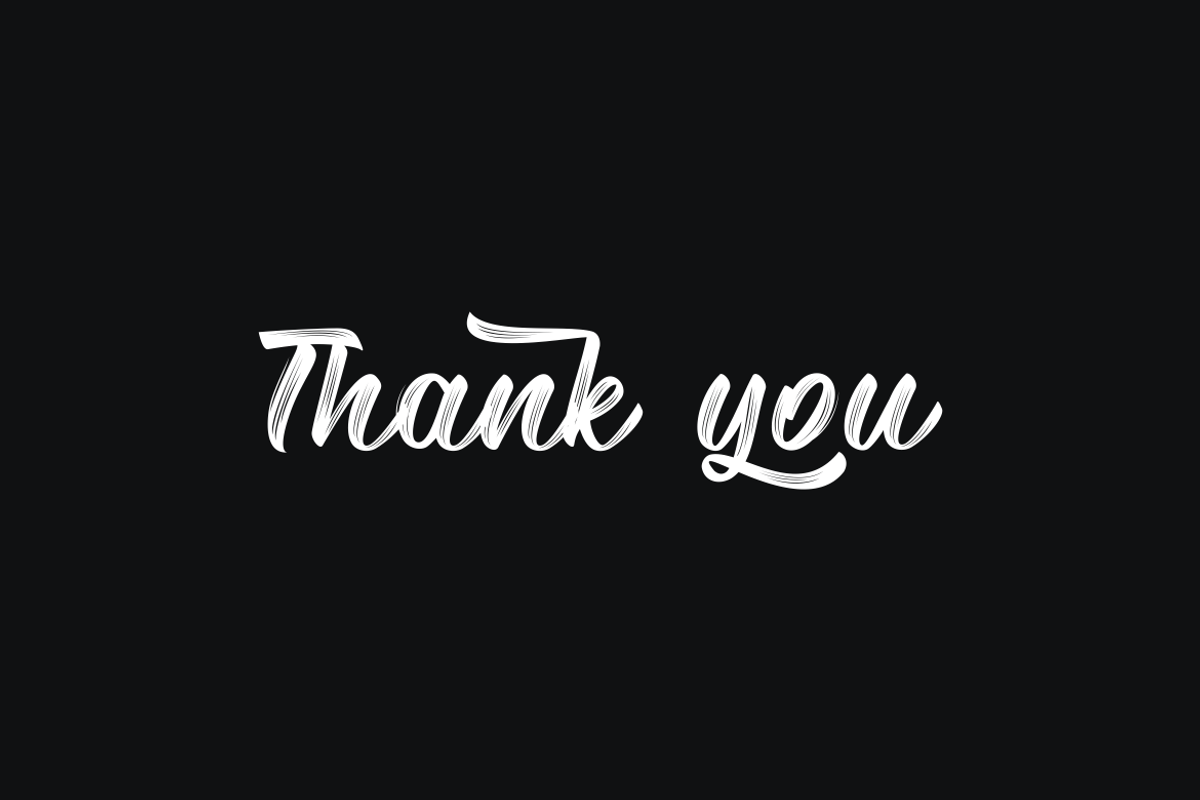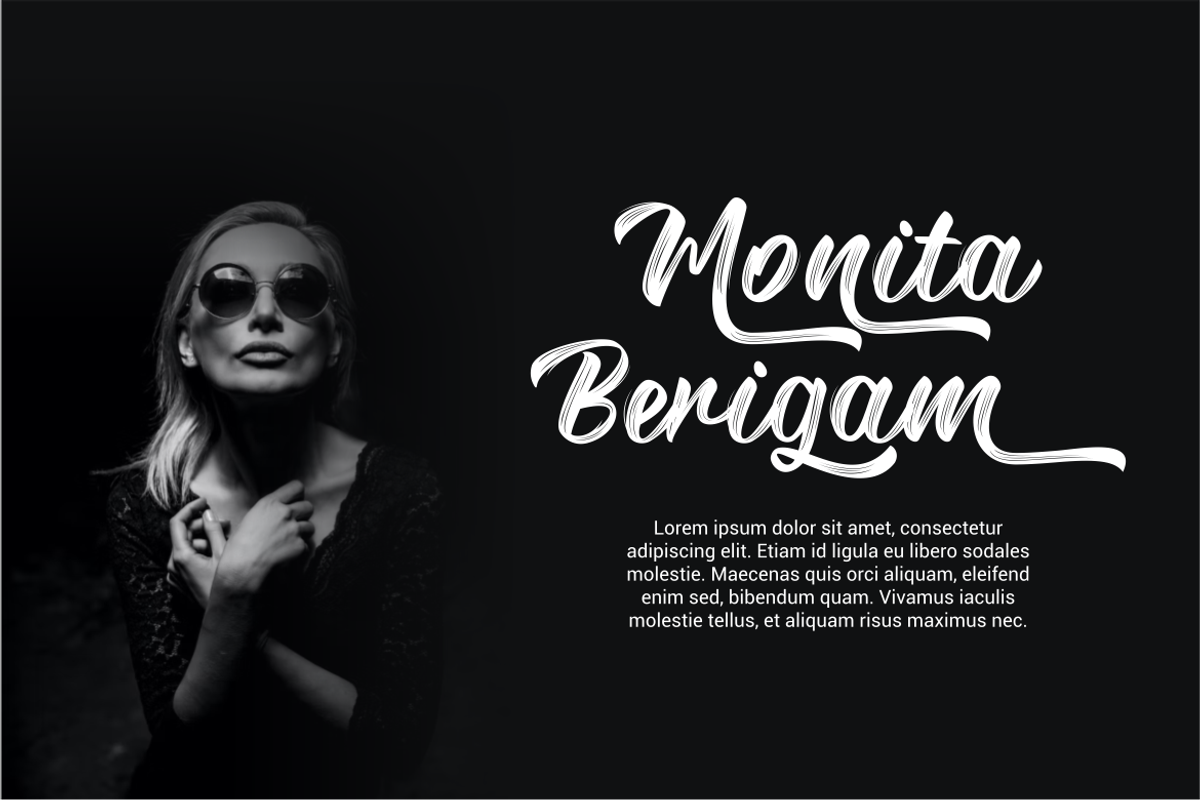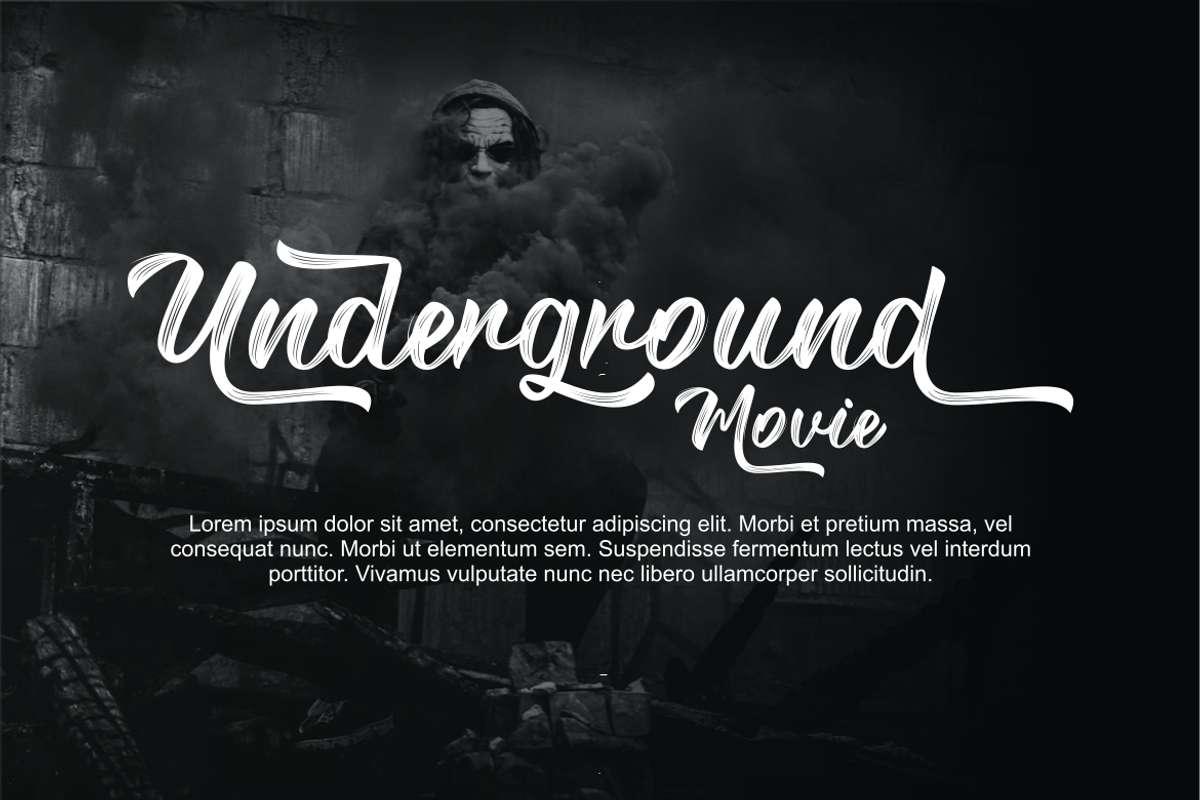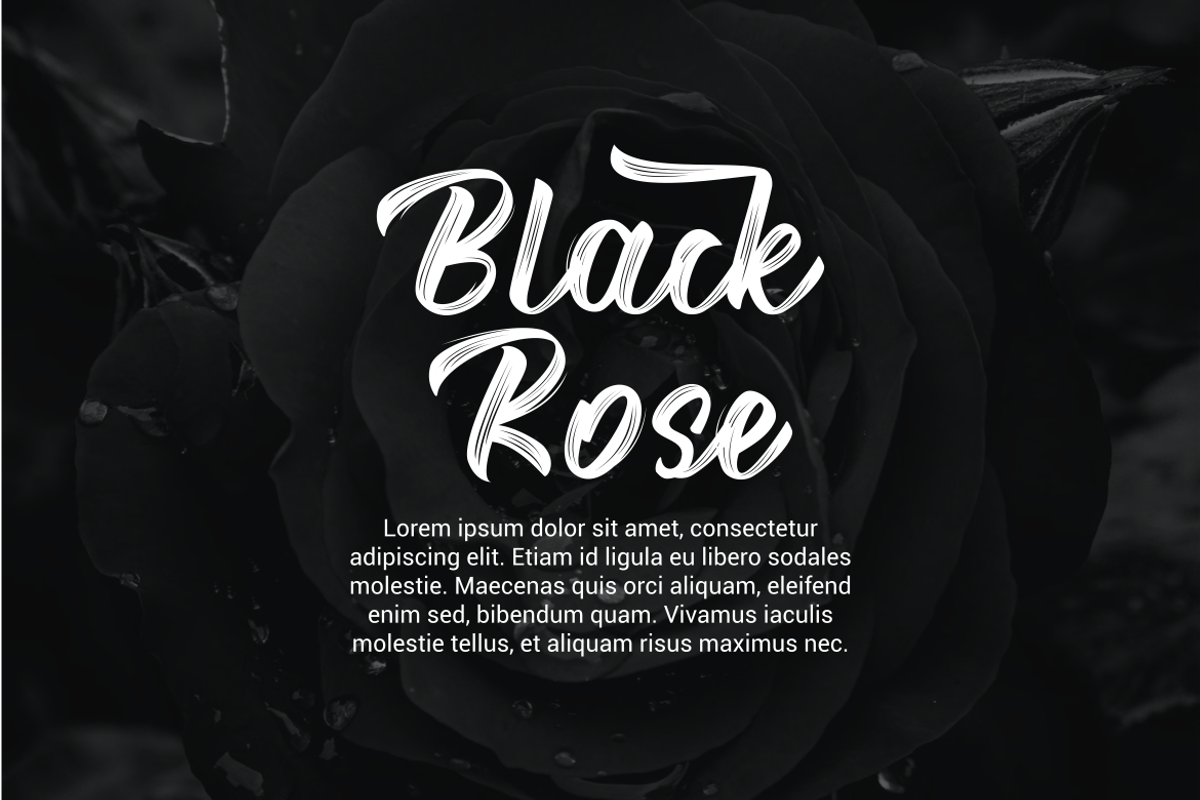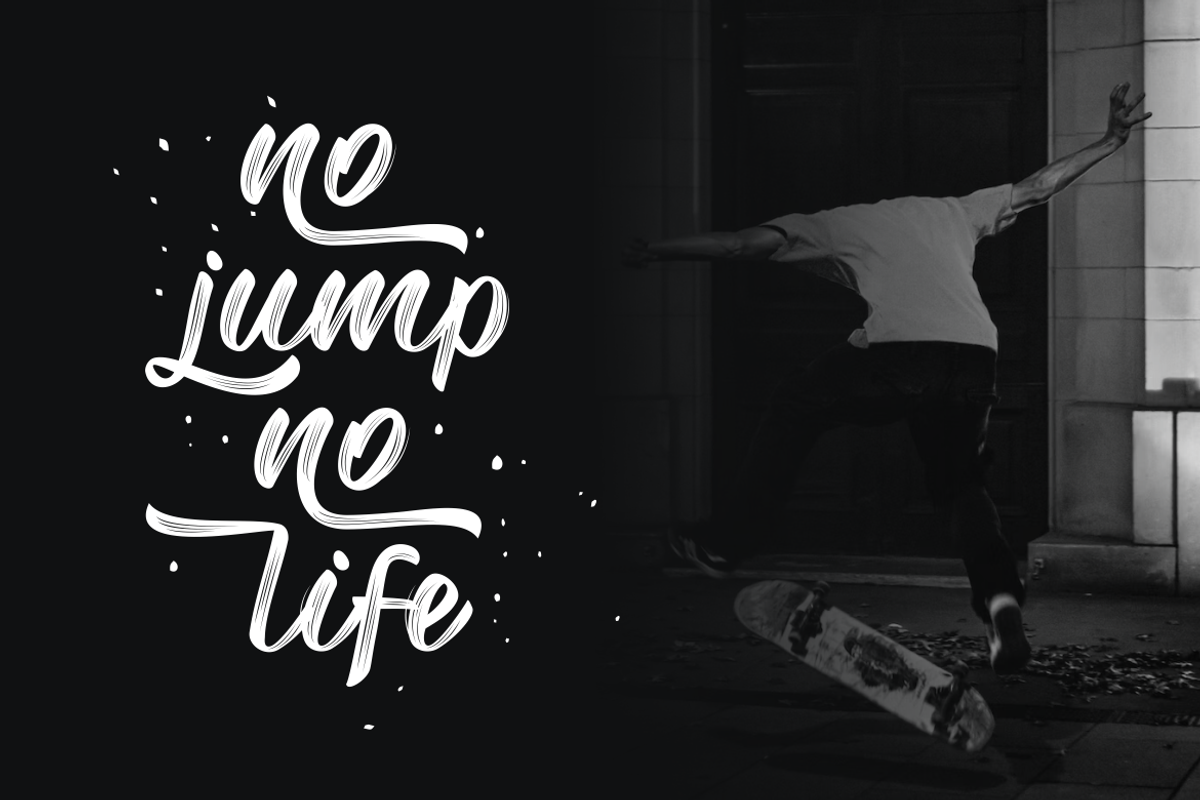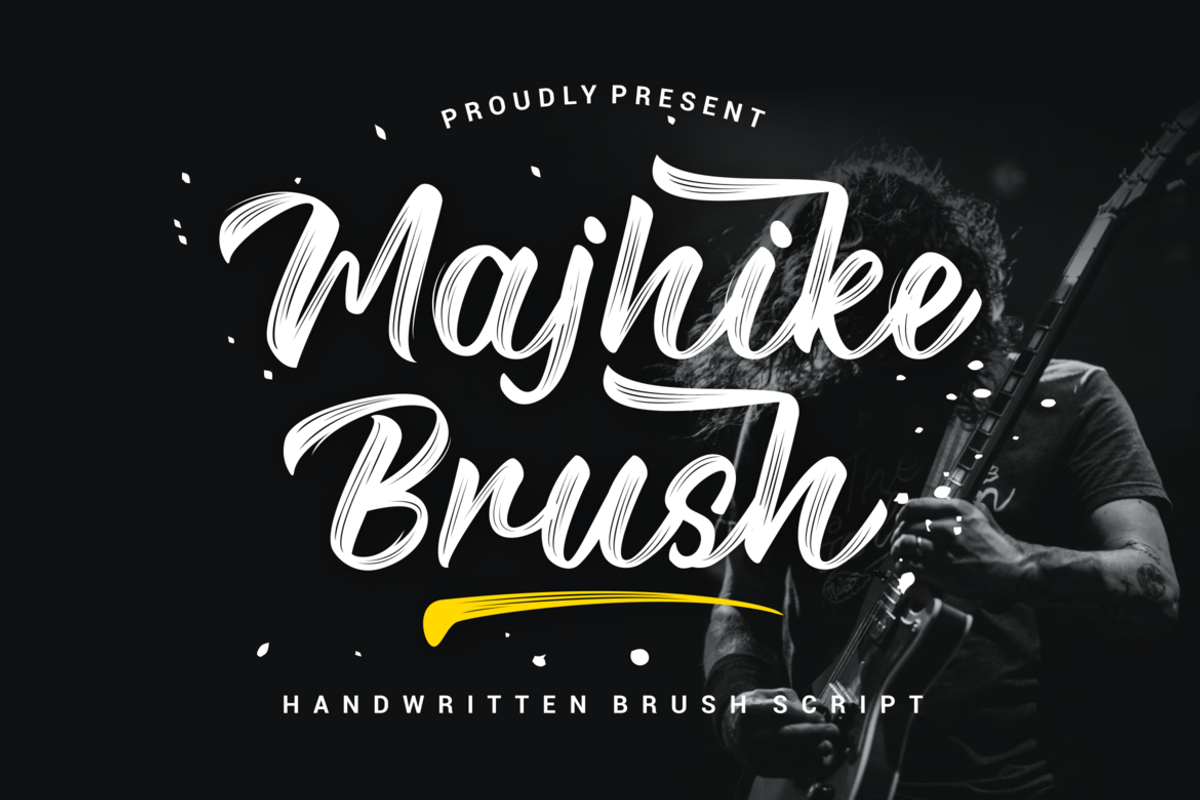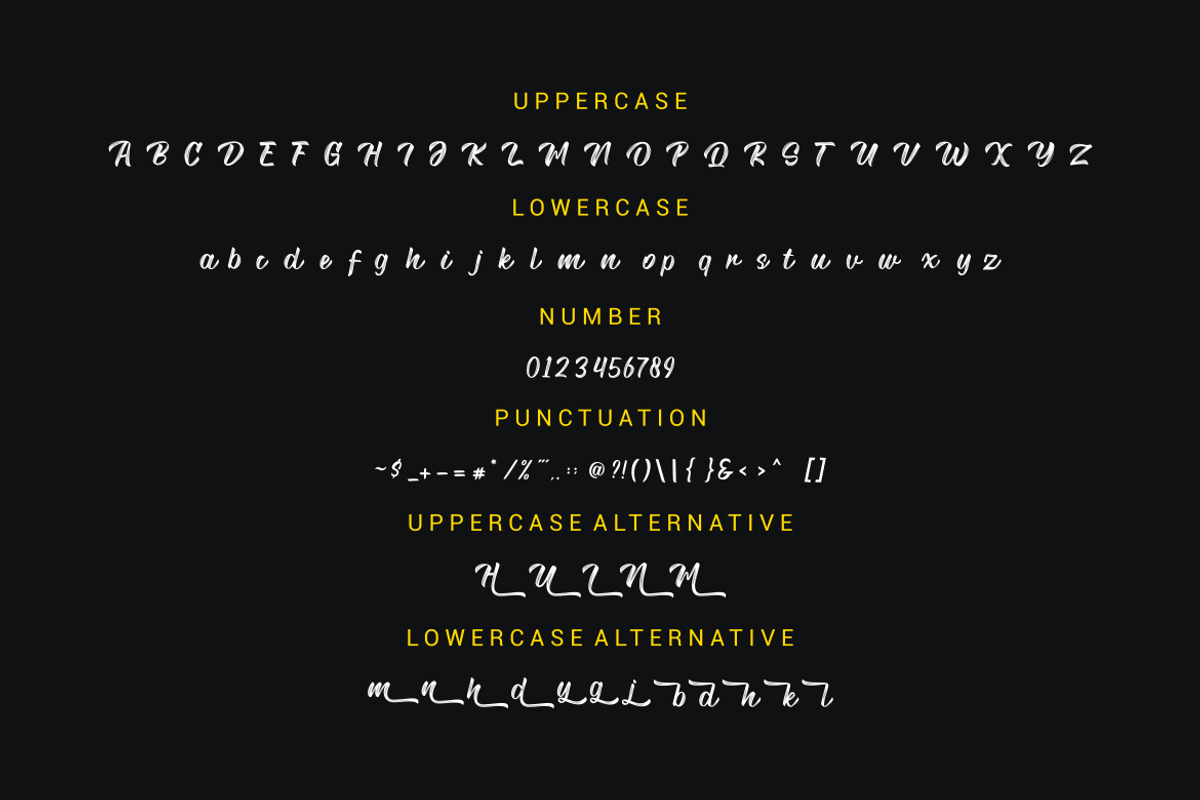
Majhike Brush Font
Presenting our new product Majhike Brush Font - Modern Brush Font is a bold and authentic display font. This font is perfect for any branding project such as logos, t-shirt printing, creative products, and more. extraordinary in a variety of contexts.